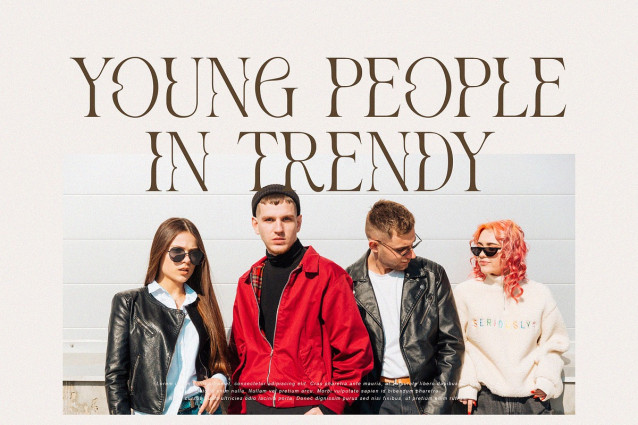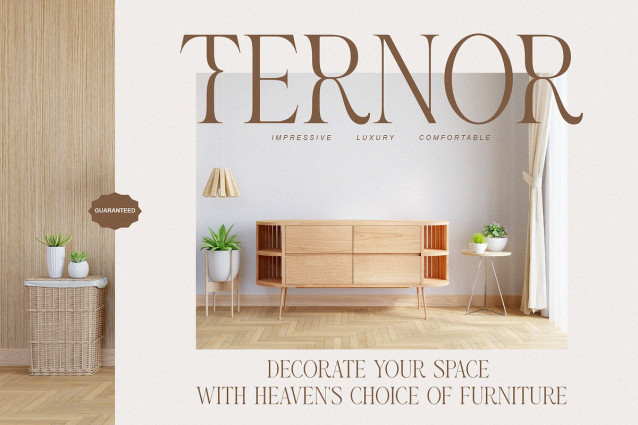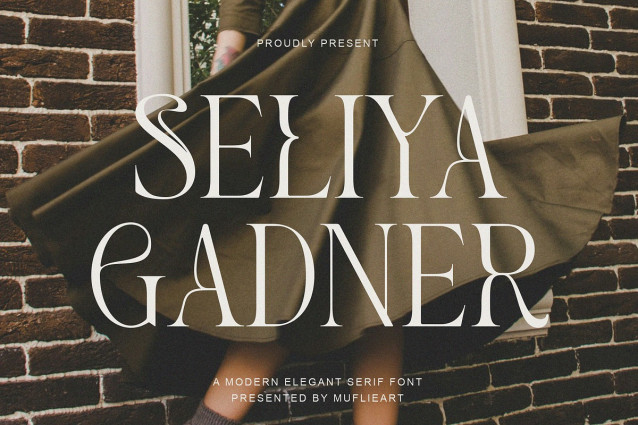
SELIYA GADNER FONT a modern and minimalist serif look, SELIYA GADNER brings a luxurious and clean style to your projects such as websites, modern logos, branding identities, social media quotes, wedding stationery and various other needs!
SELIYA GADNER features unique and classy capital letters A to Z and features alternate letters, making it a beautiful font that can be adapted to any large project you desire.